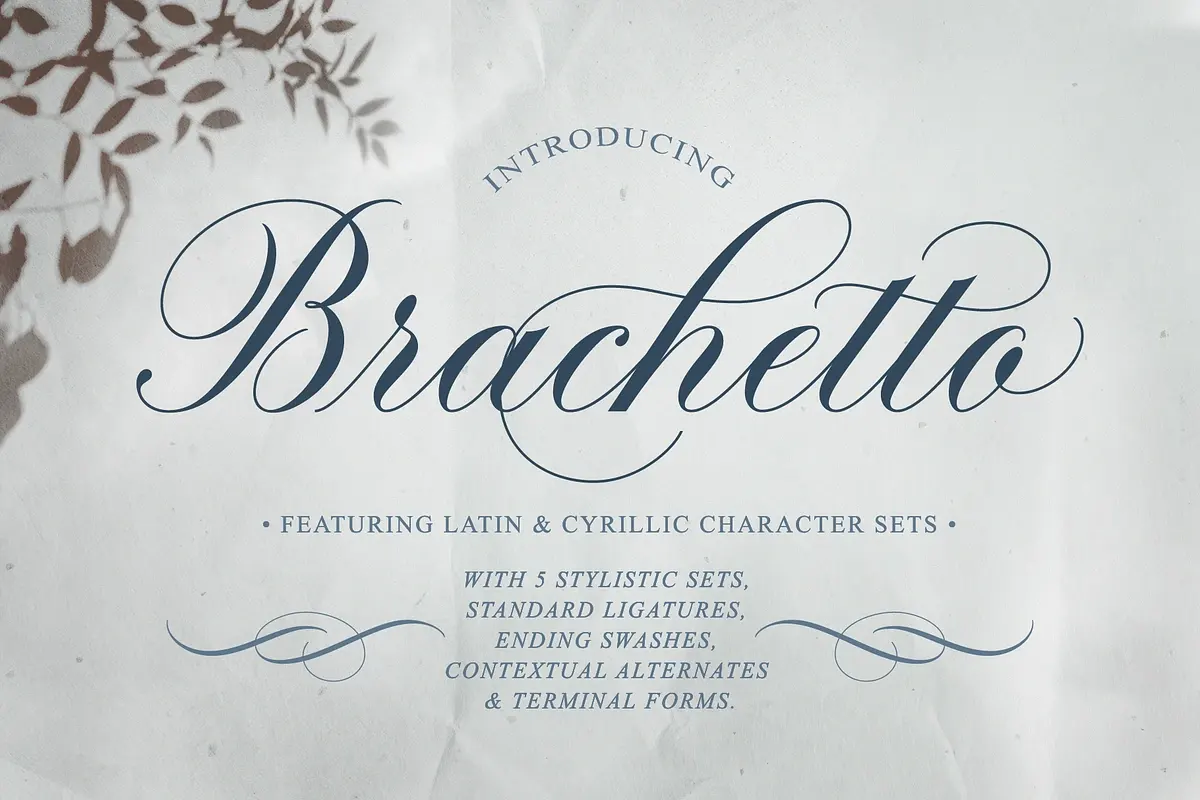
The font offers a refined, yet approachable feel, making it ideal for both formal and casual projects. It includes uppercase and lowercase letters, numerals, punctuation, and multilingual support, providing flexibility for a variety of design needs.
Whether you're designing for a luxury brand, crafting a custom invitation, or adding a creative flair to your marketing materials, Brachetto brings elegance and charm to your typography.